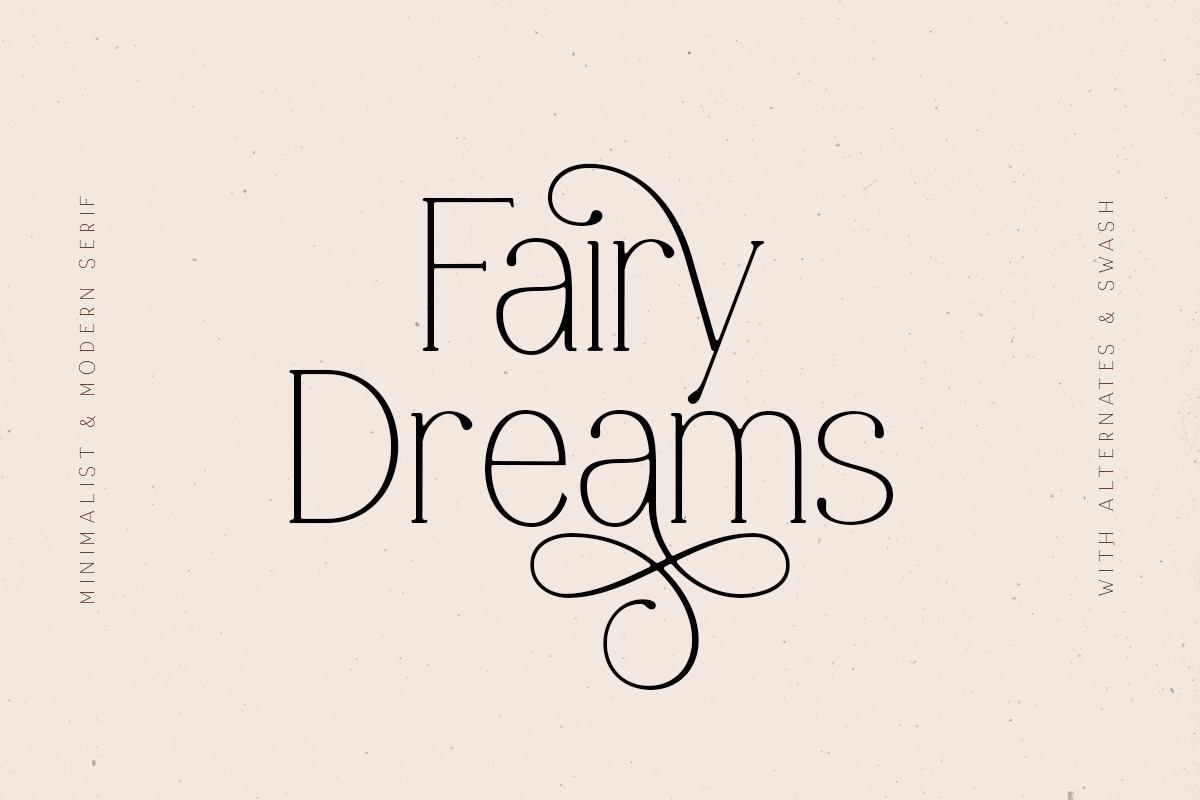
Fairy Dreams – Minimalist Serif Font Free Download is a delicate and elegant typeface that blends classic serif structure with modern simplicity. With its clean lines, subtle curves, and light, airy aesthetic, this font is perfect for wedding invitations, feminine branding, lifestyle blogs, social media graphics, and editorial layouts that call for a soft and sophisticated touch.
Designed for clarity and charm, Fairy Dreams – Minimalist Serif Font Free Download works beautifully in both headers and body text. Its timeless elegance and minimalist character make it ideal for print and digital projects alike.
Add an ethereal elegance to your designs with Fairy Dreams – Minimalist Serif Font Free Download, and let your typography shine with subtle beauty and graceful simplicity. Perfect for creatives who love modern fonts with a hint of romance.